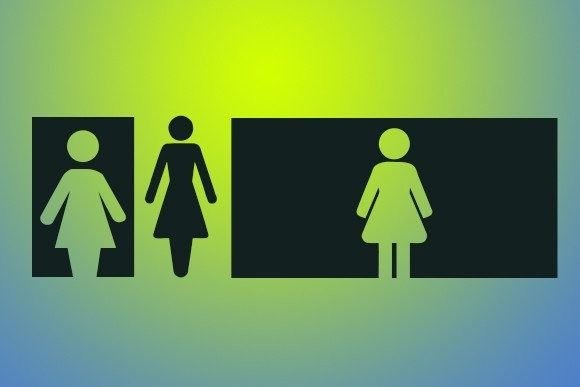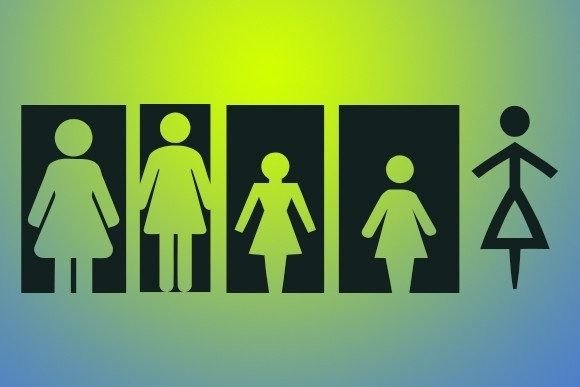
Mulher Font
ABOUT MULHER FONT
“Mulher” is an extraordinary dingbat font that will bring a touch of elegance and sophistication to your designs. With its stylish and artistic female silhouette illustrations, this font offers a unique visual element that is sure to captivate attention.
When you incorporate “Mulher” into your designs, you add a sense of grace, beauty, and empowerment. The intricate and carefully designed female silhouettes lend a sense of sophistication and femininity to your creations. Whether you’re working on posters, flyers, or shirts, this font will undoubtedly elevate your design and make it stand out.
The versatility of “Mulher” allows you to explore different ways to use the female silhouette illustrations. You can use them as decorative elements, create stunning patterns, or even combine them to form custom compositions. The variety of poses and designs offers you flexibility in expressing your creativity and achieving the desired visual impact.
In addition to its visual appeal, “Mulher” also carries a powerful message of empowerment and celebration of women. It can be used to promote women’s events, raise awareness for women’s issues, or simply celebrate the strength and beauty of women. By incorporating this dingbat font into your designs, you contribute to a positive and inclusive visual representation.
Whether you’re designing for a fashion brand, an empowerment campaign, or simply want to add a touch of elegance to your creations, “Mulher” is the perfect choice. The font’s ability to convey grace, beauty, and empowerment makes it a valuable asset in your design toolkit.
So, embrace the sophistication of “Mulher” and let it enhance your designs. Incorporate these stunning female silhouette illustrations into your posters, flyers, and shirts, and watch as they add a touch of elegance and allure to your projects.